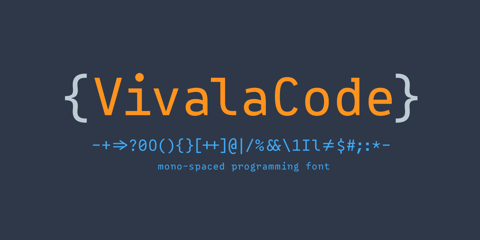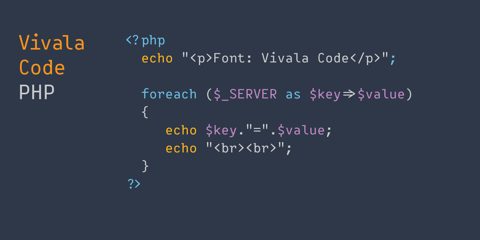
The mono-spaced Vivala Code is designed specifically for programming. Each day developers spend hours looking at a screen. Vivala Code is aligned to their needs. It has a clear distinction between similar characters and owns an optimized punctuation, especially for source code. It’s suitable for light text on a dark background at small sizes.
Zero StyleDot
LigaturesYes
Weights1 (Regular)
ItalicsYes
Vivala Code